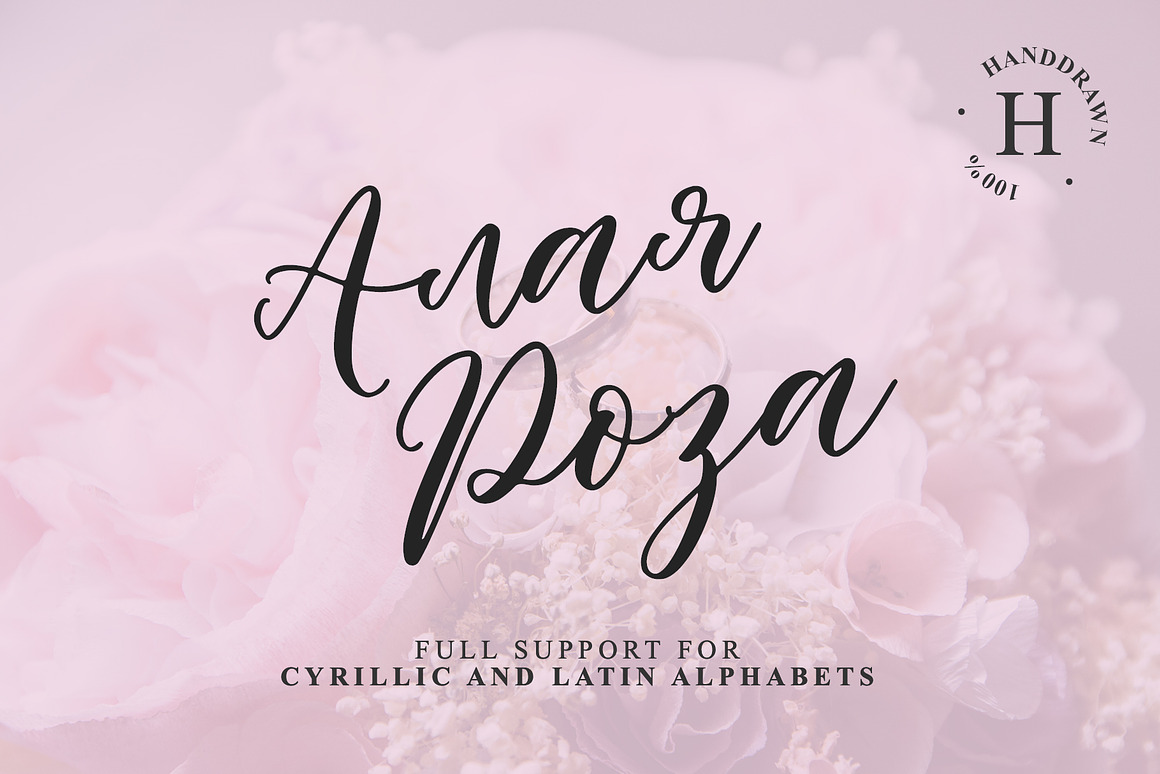
ALAYA ROZA Font
ALAYA ROZA Font is perfect for luxury branding, fashion design, wedding invitations, beauty campaigns, elegant logos, high-end packaging, boutique signage, premium editorial design, cosmetics branding, and sophisticated advertising materials. This distinctive typeface excels in both digital and print applications requiring refined elegance.
ALAYA ROZA Font is exciting because it captures timeless sophistication with contemporary flair, offering graceful letterforms that exude luxury and exclusivity while maintaining excellent readability. Its refined character creates memorable brand experiences that resonate with discerning audiences seeking premium quality and artistic excellence.
The ALAYA ROZA Font family includes regular, bold, light, italic, condensed, extended, and ornamental variants, providing designers with comprehensive typographic options for various design scenarios and luxury brand communication needs.
ALAYA ROZA Font represents the pinnacle of sophisticated typography, combining artistic elegance with commercial viability to create a typeface that elevates premium brands to new heights of visual distinction. This exquisite font embodies the refined aesthetics demanded by luxury markets, delivering letterforms that communicate exclusivity and superior craftsmanship. The font's distinctive character makes it particularly valuable for high-end fashion houses, luxury hotels, premium beauty brands, and exclusive service providers that require typography capable of conveying prestige and aspirational appeal.
The artistic construction of ALAYA ROZA Font demonstrates masterful typographic craftsmanship, with each letterform carefully balanced to create harmonious compositions that enhance brand perception and customer desire. This meticulous attention to detail ensures consistent performance across diverse luxury applications, from intimate boutique environments to grand marketing campaigns. The font's elegant proportions create sophisticated visual hierarchies that guide audiences through premium brand experiences while maintaining the exclusivity essential for luxury positioning.
From exclusive packaging to brand identities, ALAYA ROZA Font provides the typographic sophistication needed for luxury communications that inspire desire and convey premium value, ensuring your brand achieves distinguished market positioning and connects authentically with affluent target audiences.